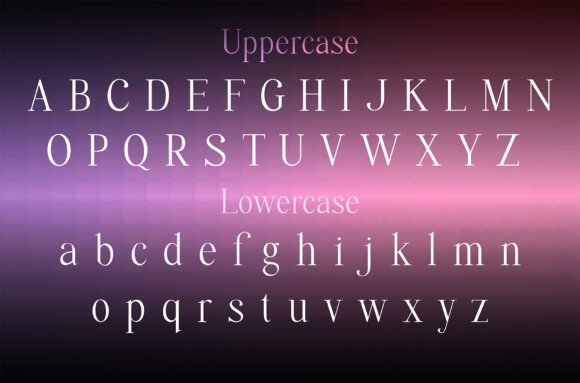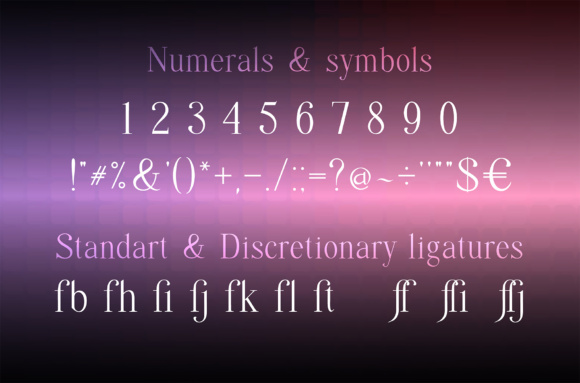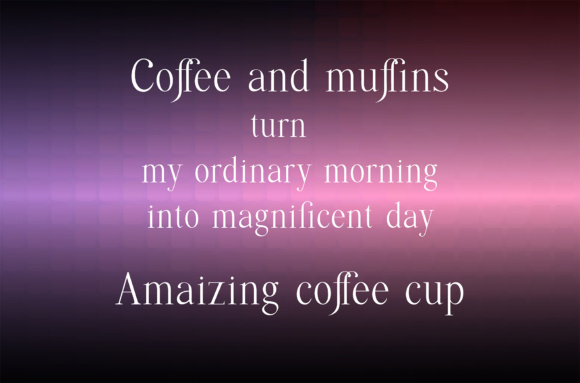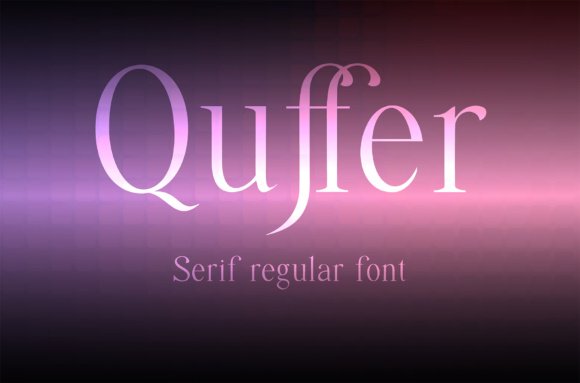
Introduction to Quffer Font
Quffer is a gorgeous serif font, ideal for headlines and more.
This display font has a very traditional look but works well in both modern and throwback designs .
Why Choose Quffer Font?